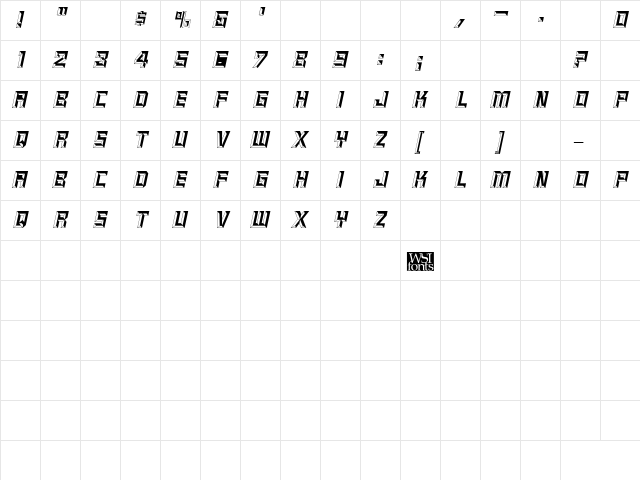
Epitaph Italic
Design Context for Epitaph Typeface
Epitaph is a composed and adaptable typeface that performs quietly and consistently across a wide range of design contexts. The slanted form adds forward momentum and visual energy.
Pro Tip: Try Epitaph for annotation and caption copy alongside an upright companion — the contrast in angle creates a dynamic but ordered typographic system.